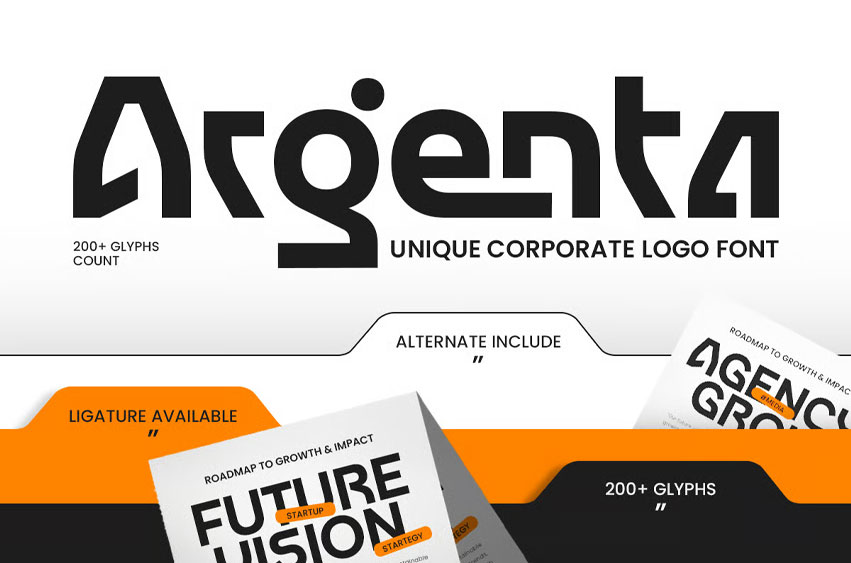
Argenta Font
Argenta Font is a unique corporate logo font designed for modern branding and professional business identities. Ideal for logos, presentations, corporate materials, and digital branding, it combines clean geometric precision with elegant simplicity.
With its balanced and versatile design, Argenta ensures a polished, professional look across both print and digital applications, perfect for companies and creatives seeking a distinctive logo typeface.
Argenta – Unique Corporate Logo Font Features
• Clean and modern corporate character set
• Perfect for branding, business identity, and professional designs
• OpenType features for extra versatility
Create a strong and modern brand presence with Argenta – the ultimate corporate logo font for professional identity.